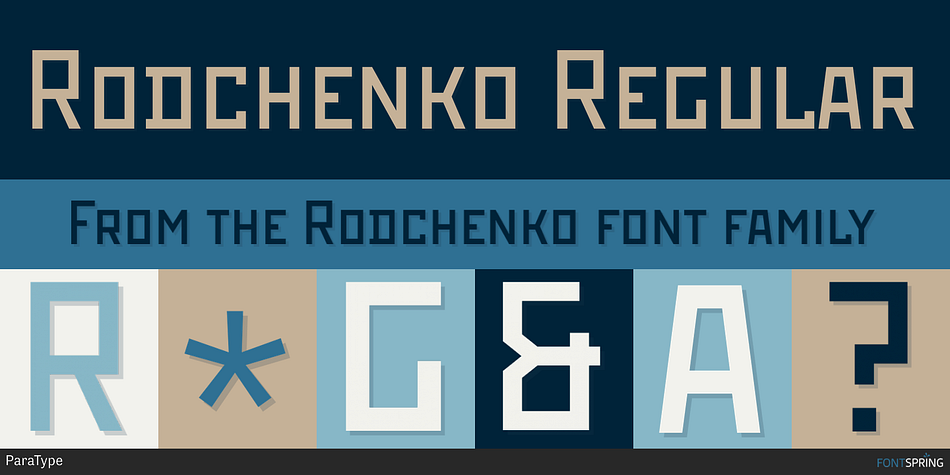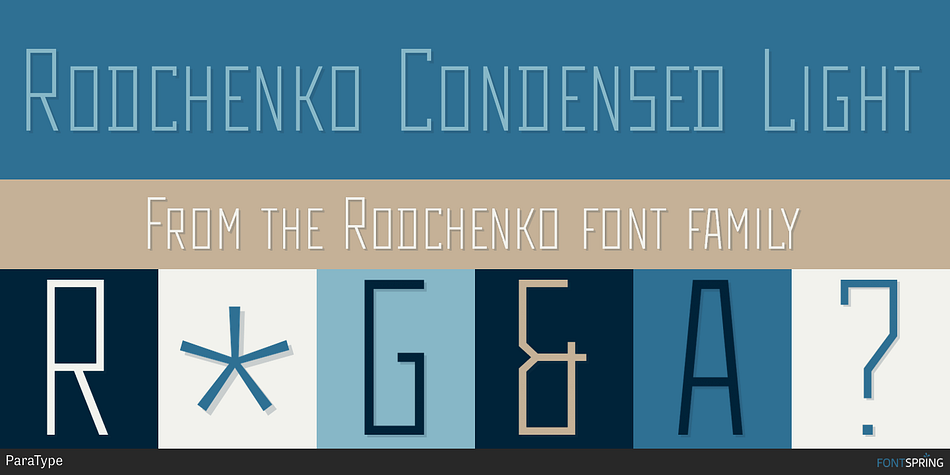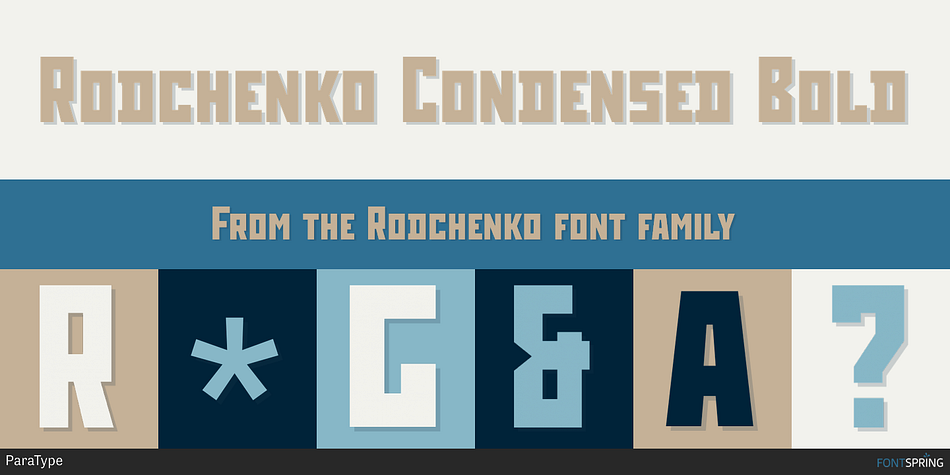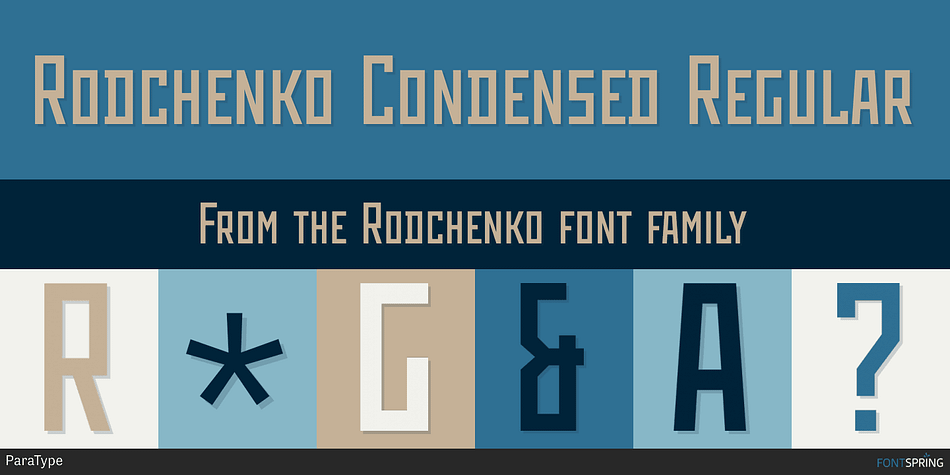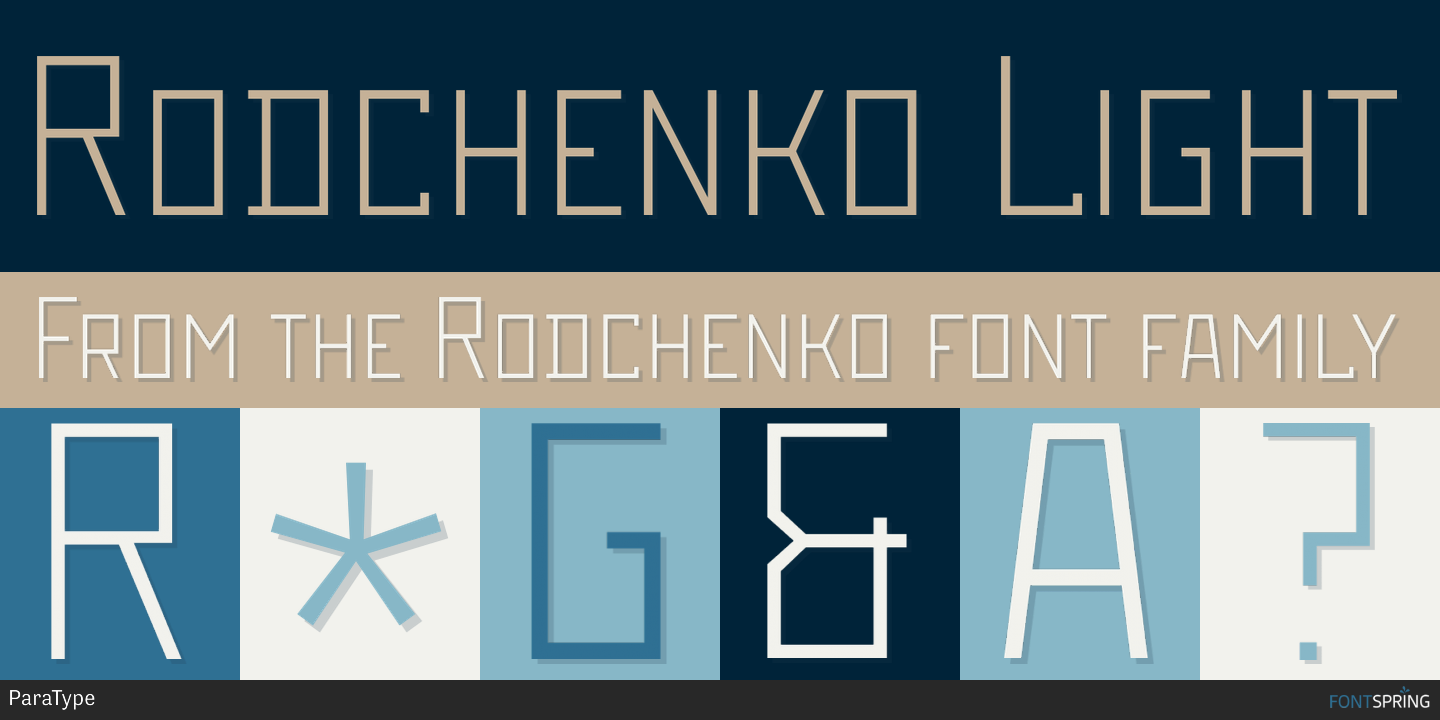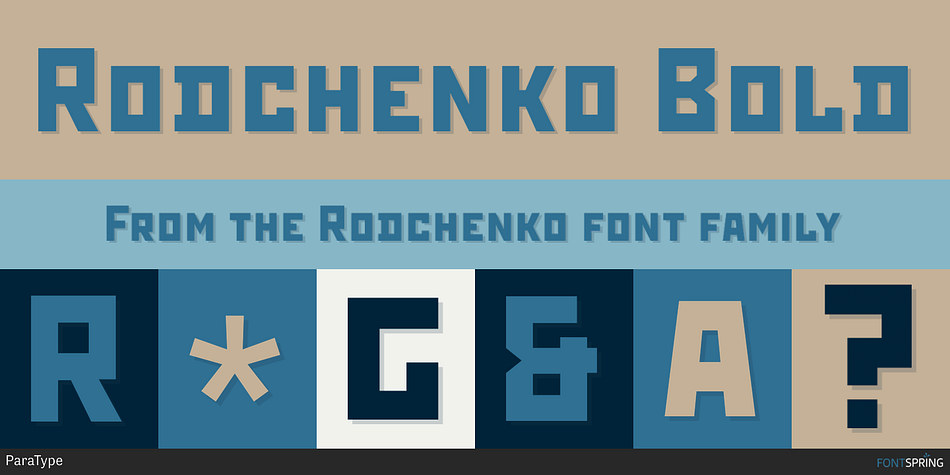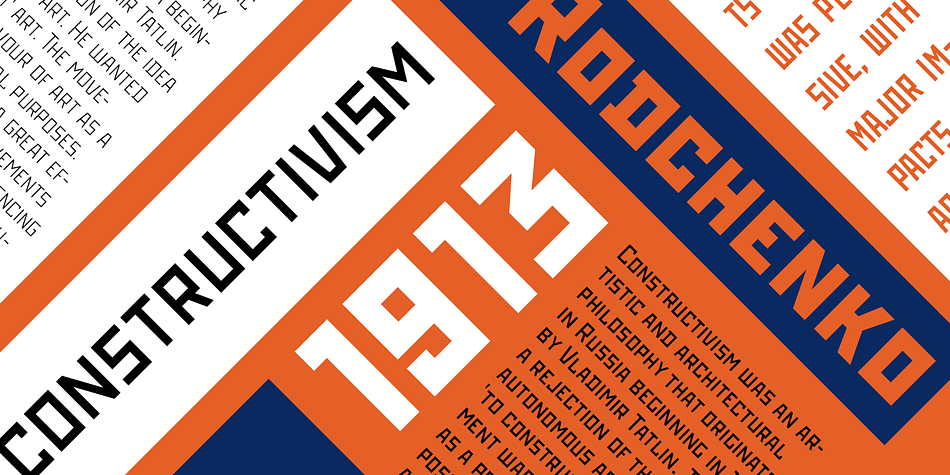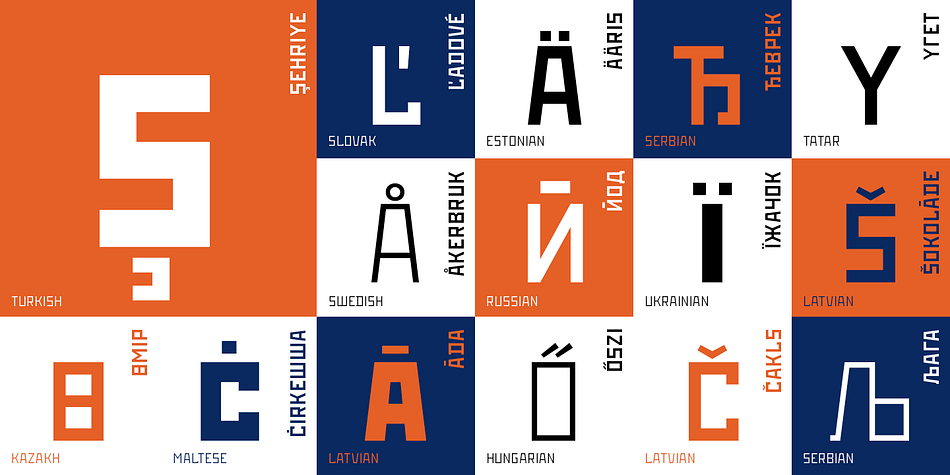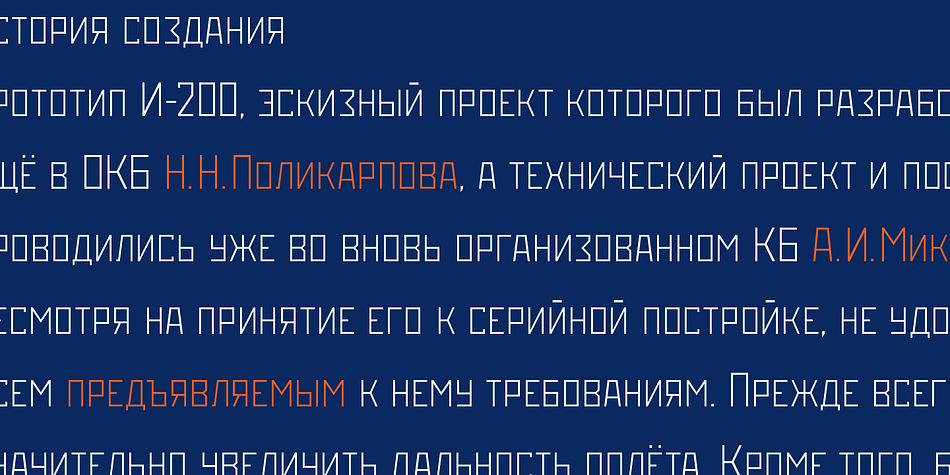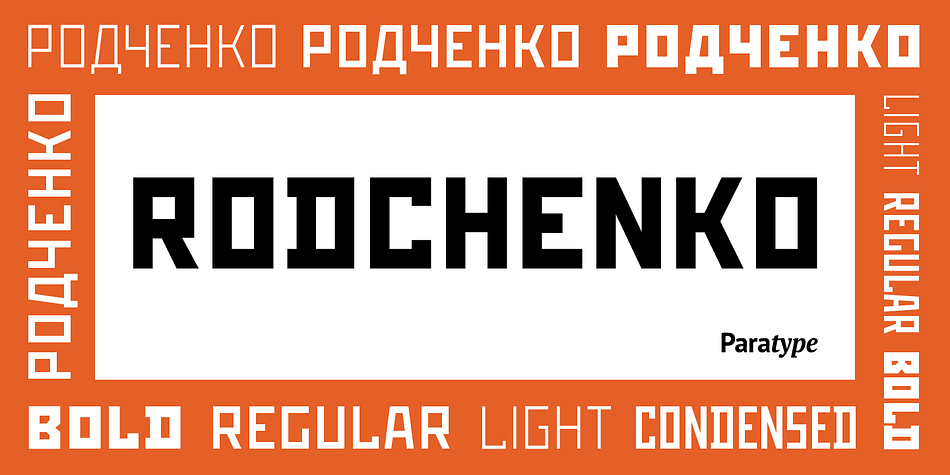
Designed by Tagir Safayev, Rodchenko is a display sans font family. This typeface has six styles and was published by ParaType.
Designed at ParaType in 1996-2002 by Tagir Safayev. Inspired by works of Russian Constructivists of the 1920s and 30s: Alexander Rodchenko, Varvara Stepanova, Vladimir and George Stenberg, Gustav Klutsis and others. A geometrical, caps and small caps only, sans serif design. The glyphs are formed using straight lines only. Totally simplified, this face is perceived as a symbol of Russian Avant Garde. For use in advertising and display typography.